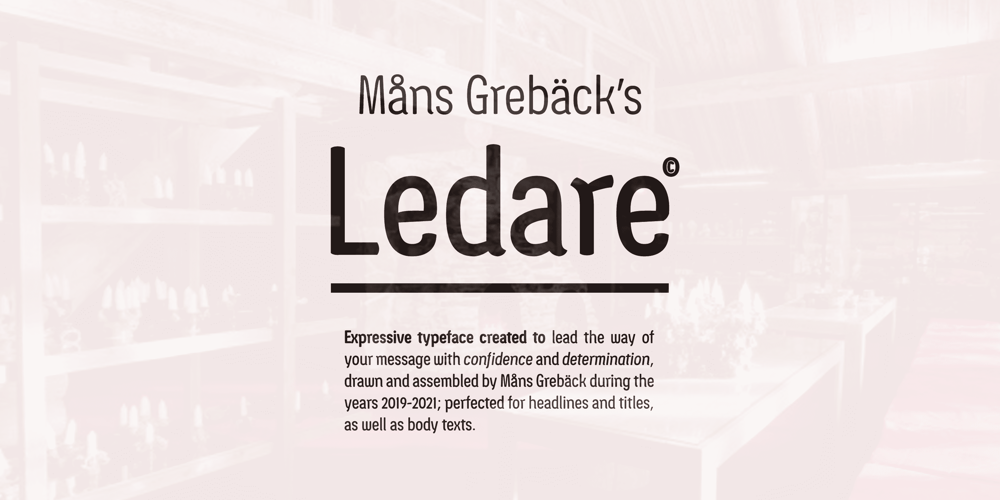
Ledare
Ledare font
Ledare Font Family was designed by Måns Grebäck and published by Mans Greback. Ledare contains 14 styles and family package options. Ledare is a dynamic sans-serif typeface. Created by Mans Greback between years 2019-2021, this expressive font leads the way of your message with confidence and determination. It has a soft, easy-going outlook, yet is formal and rigid. The Ledare family consists of 14 fonts: Thin, ExtraLight, Light, Medium, Bold, ExtraBold and Black, with each weight as italic. The font is built with advanced OpenType functionality and has a guaranteed top-notch quality, containing alternates, ligatures and more features; all to give you full control and customizability. It has extensive lingual support, covering all Latin-based languages, from North Europa to South Africa, from America to South-East Asia. It contains all characters and symbols you’ll ever need, including all punctuation and numbers.